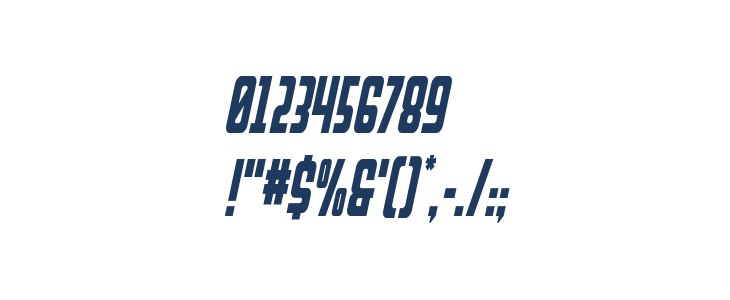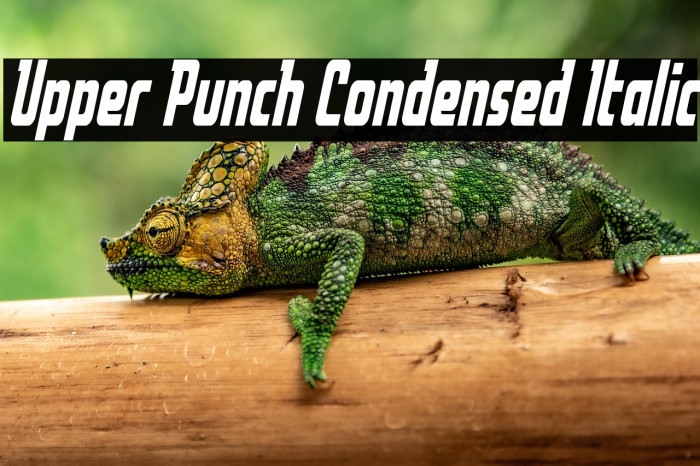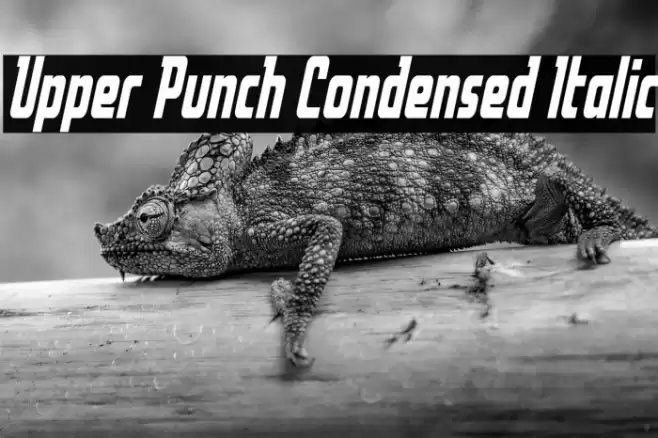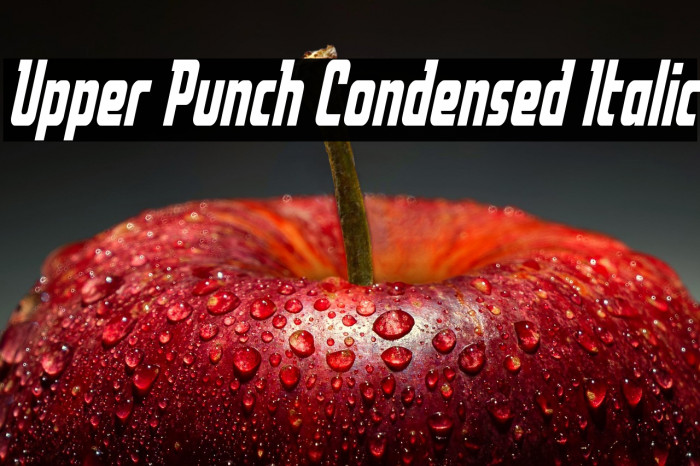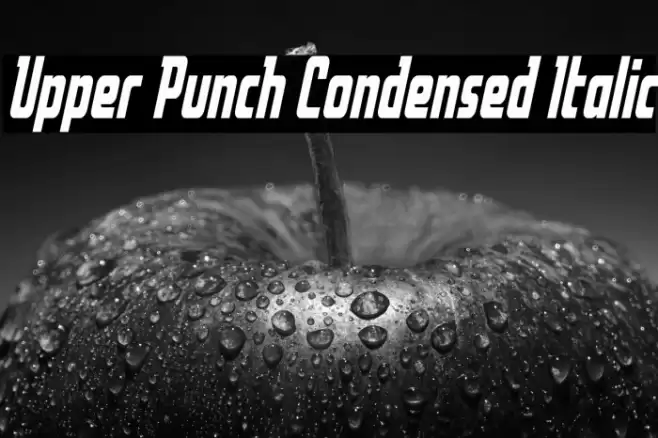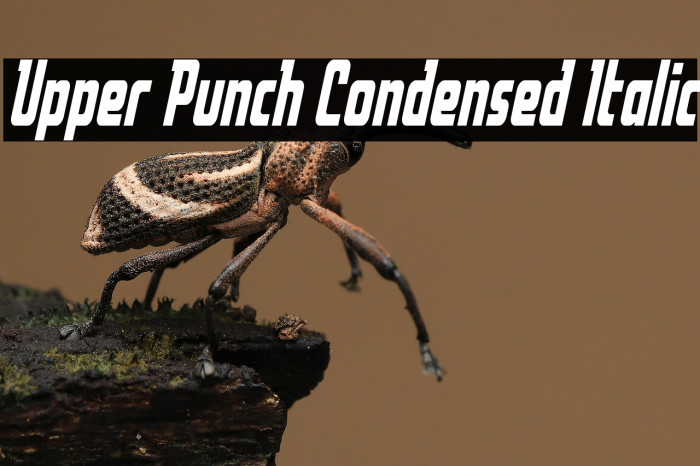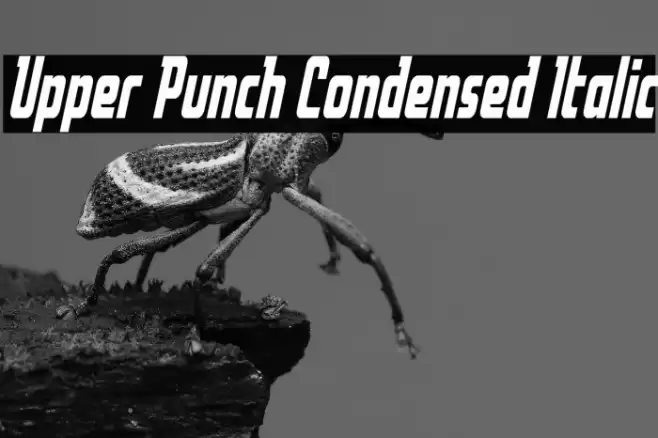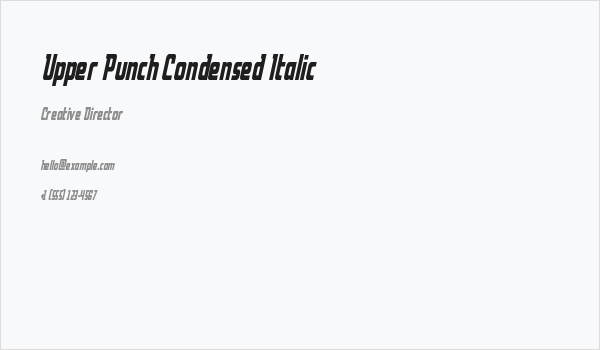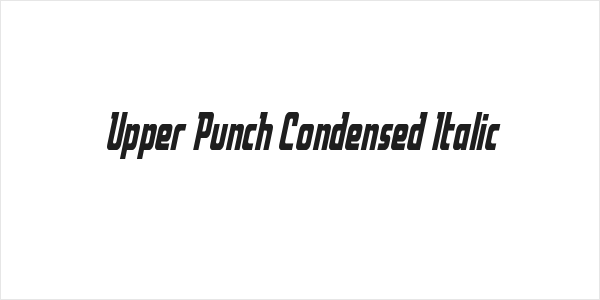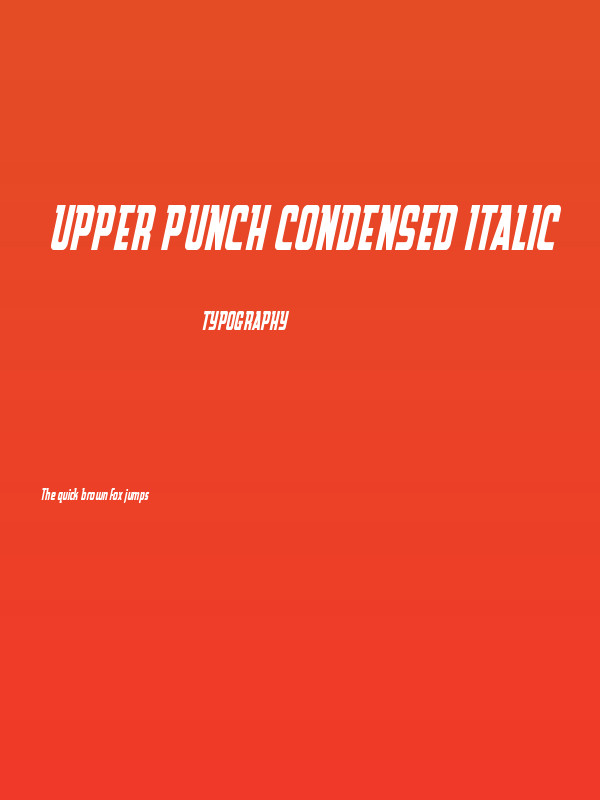
Upper Punch Condensed Italic Font
Upper Punch Condensed Italic Description
This font features a bold and dynamic style with a condensed and italicized form. The characters are tightly spaced, enhancing its compact appearance. The strokes are thick and consistent, providing a strong visual impact. The slanted design adds a sense of motion and energy, making it suitable for attention-grabbing headlines or titles. The uppercase and lowercase letters maintain a uniform style, while the numerals and special characters complement the overall aesthetic. Its boldness and condensed nature make it ideal for projects that require a powerful and modern look.